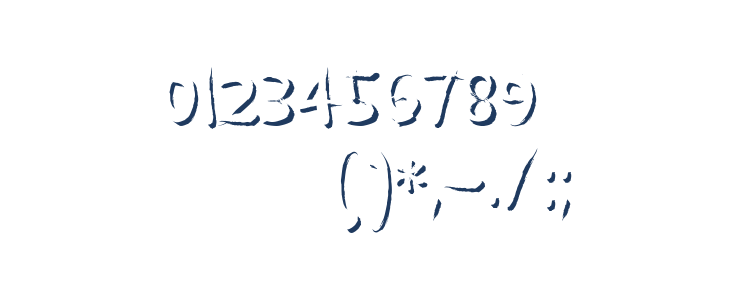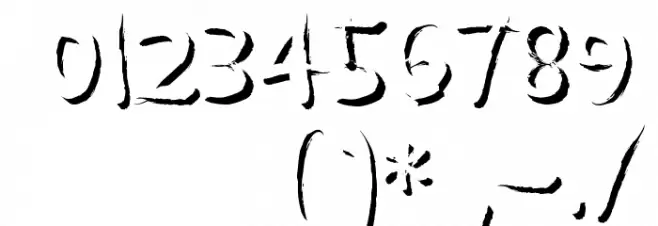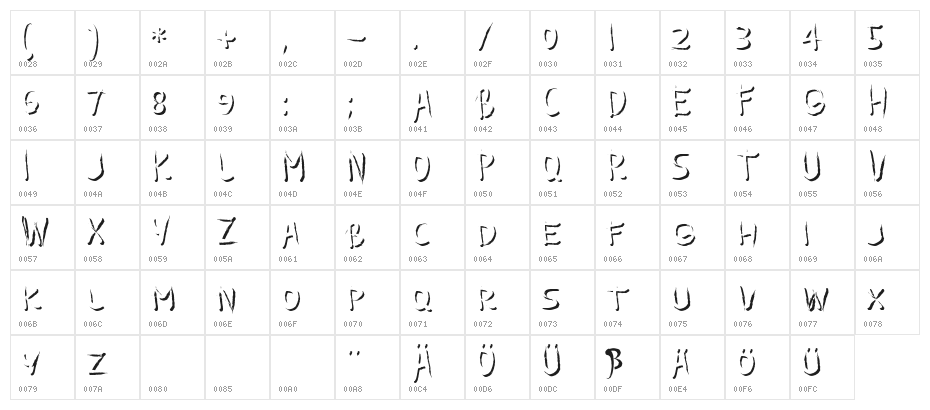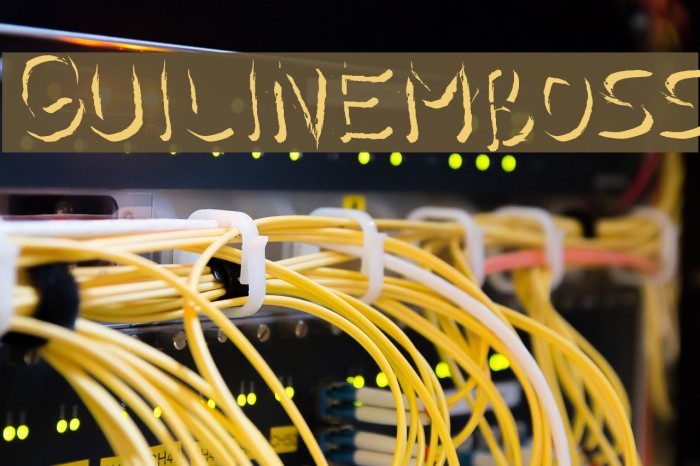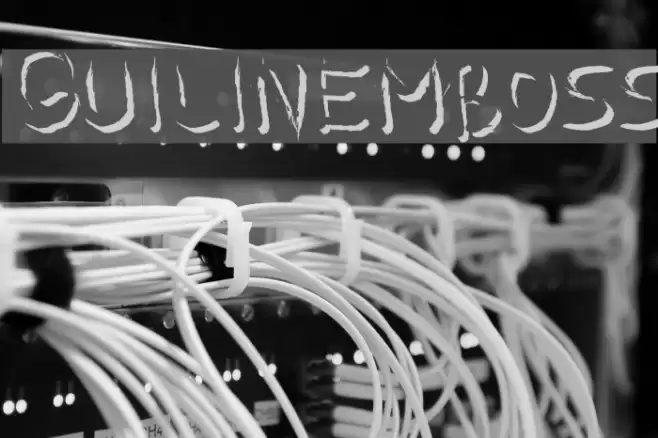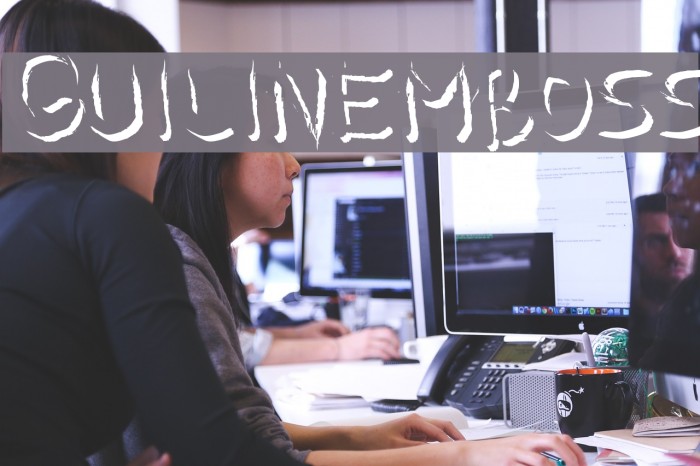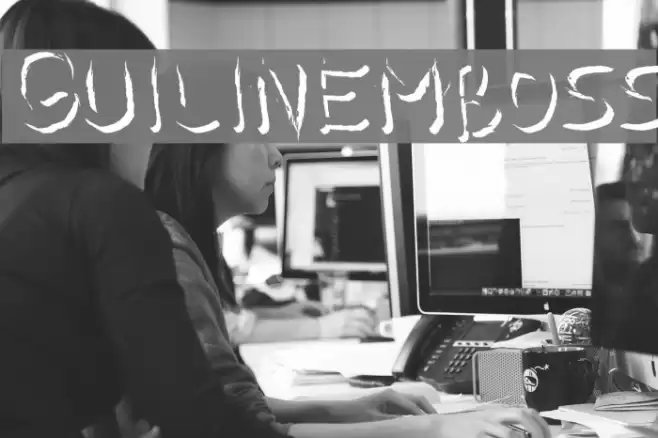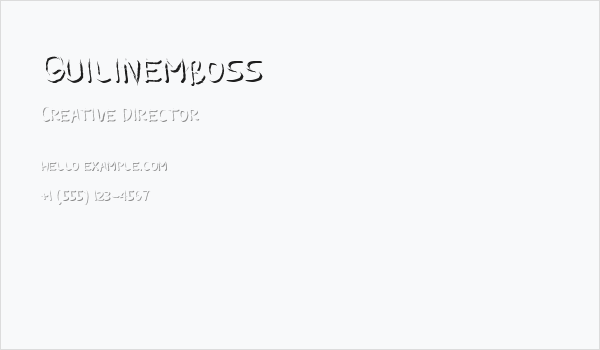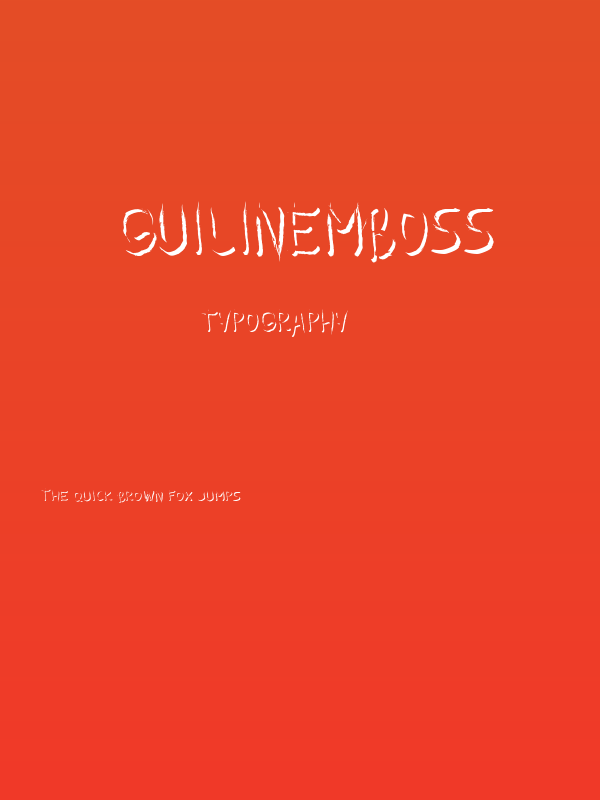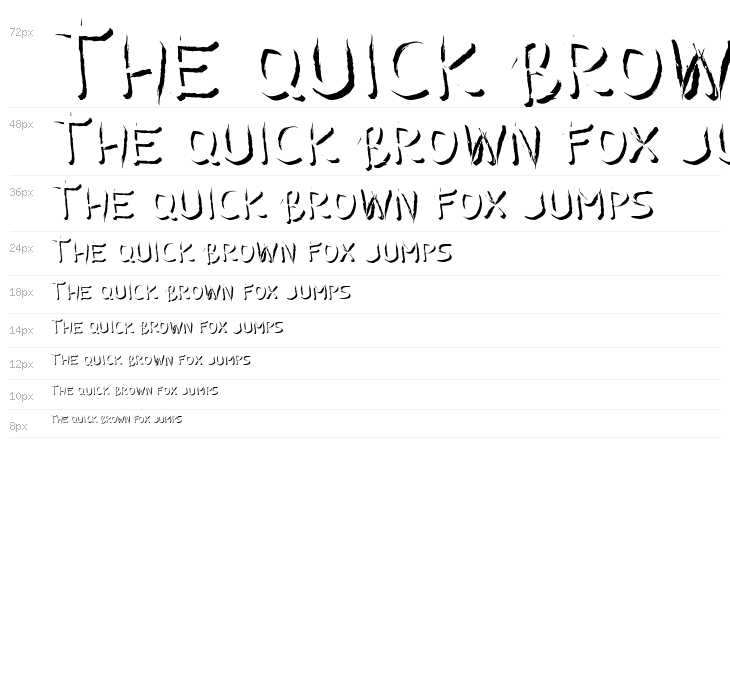
Guilinemboss Font
Guilinemboss Description
This font exhibits a unique, artistic style with a textured, brush-like appearance. The characters are bold and dynamic, featuring irregular edges that give them a hand-drawn feel. The uppercase and lowercase letters maintain a consistent style, with a slightly rough texture that adds to the overall aesthetic. The numerals and special characters follow the same design principles, ensuring a cohesive look across all elements. This font's distinctive style makes it stand out, offering a creative and expressive option for various design projects.
| Overall Style | Artistic, Expressive |
| Proposed Projects | Ideal for artistic projects, posters, branding, and any design requiring a bold, expressive typeface. |